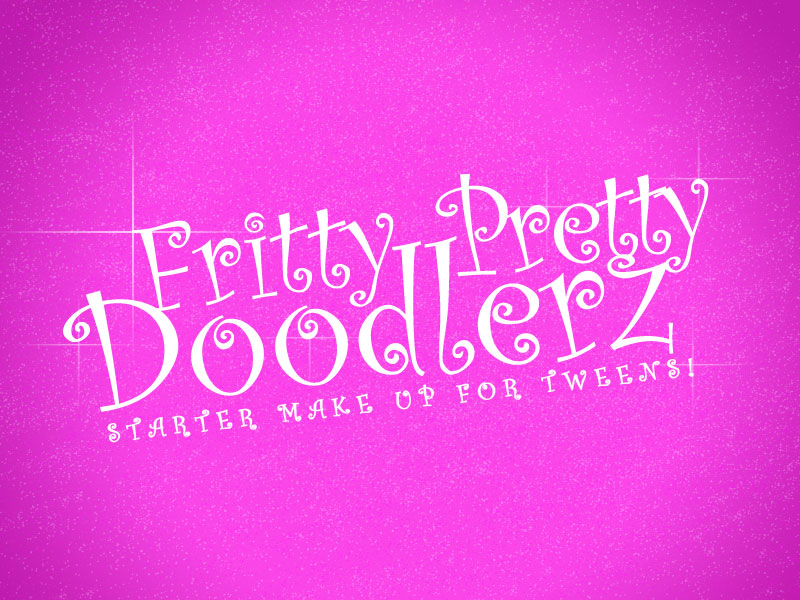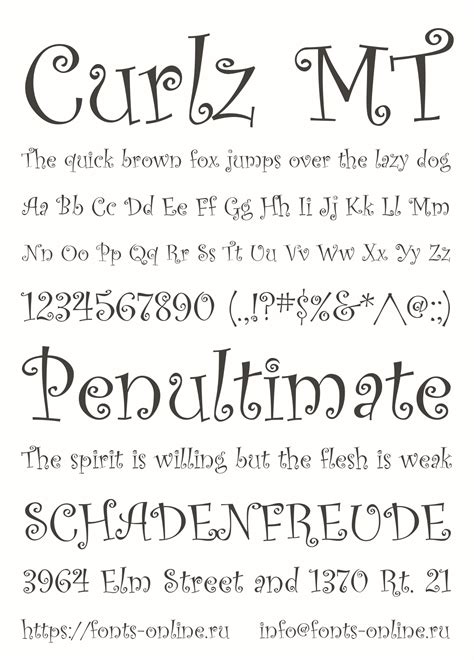
Curlz Mt Font. Download curlz mt regular for free. For a unique, festive touch, add a little curlz to posters, flyers, invitations, menus and tee.
For a unique, festive touch, add a little curlz to posters, flyers, invitations, menus and tee. The curlz font is best used for impudent, carefree titles. Web curlz was designed by steve matteson and carl crossgrove in 1995. View sample text, character map, user rating and review for curlz mt regular. Web curlz mt is a free typeface to be used inside any personal project however it requires certain permissions when you want to use them it in any commercial projects. Curlz is designed to look like bent, twisted metal. Curlz is appropriate for menus, signage. Web about curlz font family. This typeface was designed by carl crossgrove and steve matteson in. Download curlz mt regular for free.
For a unique, festive touch, add a little curlz to posters, flyers, invitations, menus and tee. Curlz is designed to look like bent, twisted metal. View sample text, character map, user rating and review for curlz mt regular. Web about curlz font family. This typeface was designed by carl crossgrove and steve matteson in. Download curlz mt regular for free. Web curlz mt is a free typeface to be used inside any personal project however it requires certain permissions when you want to use them it in any commercial projects. The curlz font is best used for impudent, carefree titles. Curlz is appropriate for menus, signage. For a unique, festive touch, add a little curlz to posters, flyers, invitations, menus and tee. Web curlz was designed by steve matteson and carl crossgrove in 1995.